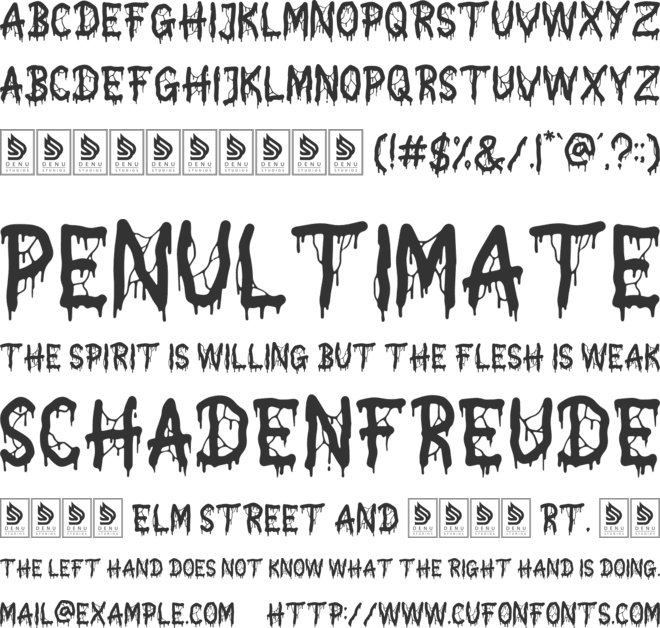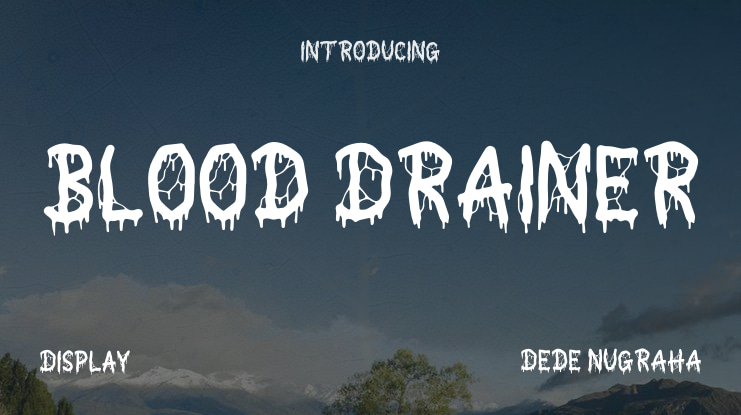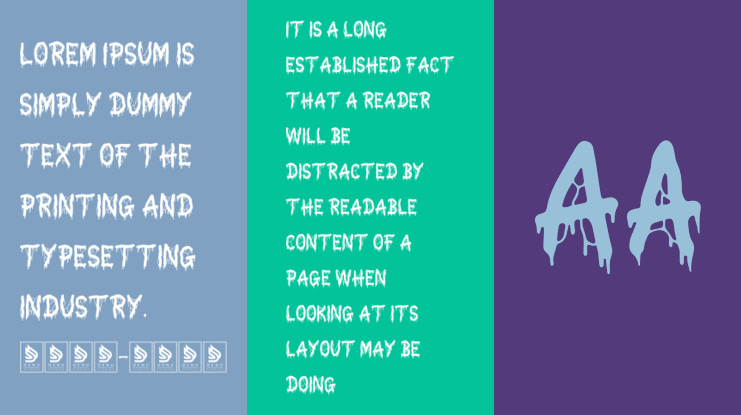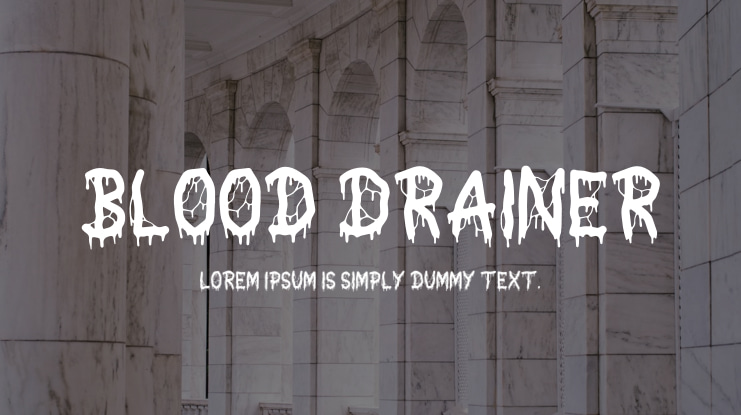
**Blood Drainer | Horror Display Font**
Blood Drainer is a horror display font that is perfect for a variety of projects, including:
- Logos - Branding projects - Homeware designs - Product packaging - Mugs - Quotes - Posters - Shopping bags - T-shirts - Book covers - Name cards - Invitation and greeting cards - Labels - Photography - Watermarks - Special events - And any other projects requiring a horror-themed display font.